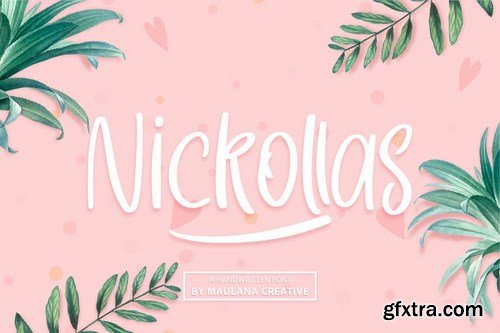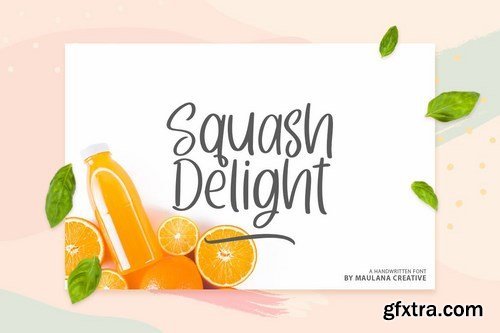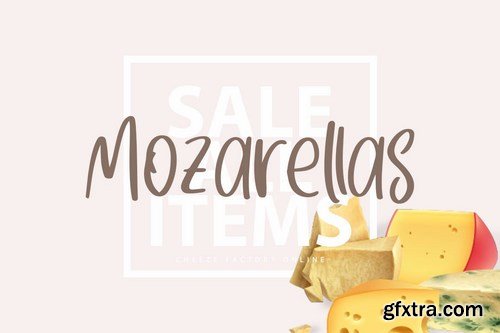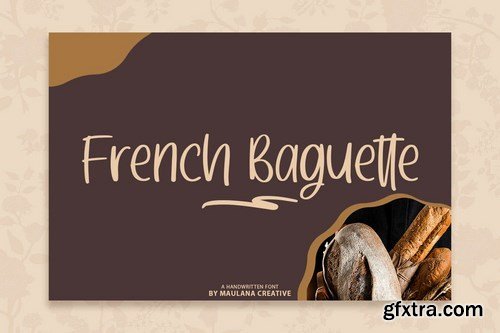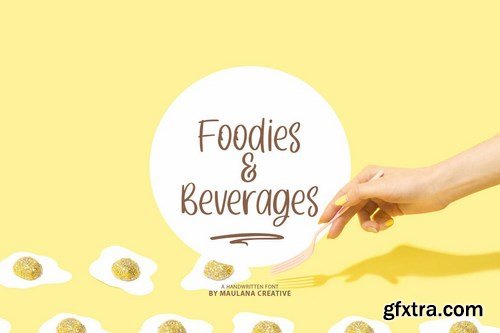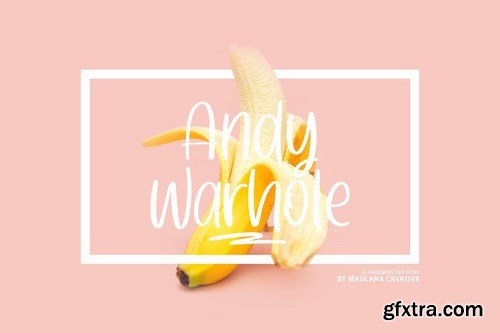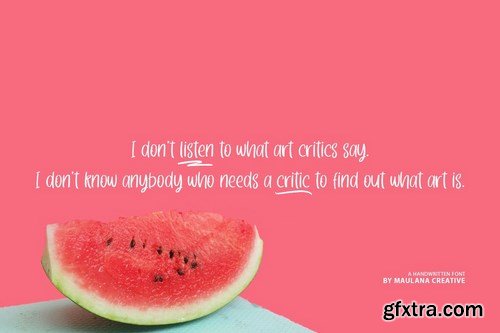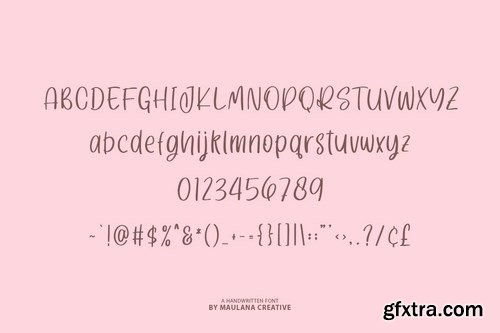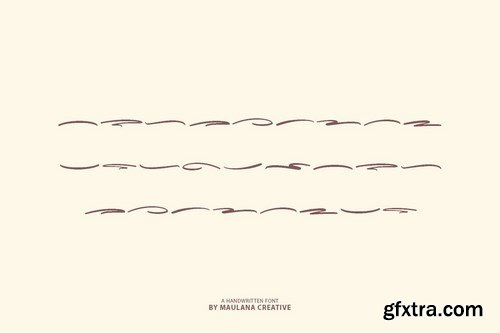
Nickollas - Handwritten Sans Serif Font
Nickollas is a handwritten sans serif font. This font is very simple and fun to use! Nickollas is perfect for create a quotes, logo, badge, insignia, packaging, headline, poster, t-shirt/apparel, greeting card, wedding invitation and more. This Nickollas font include Swash version font, the swash is very so cute for your awesome logo design.
Ligatures ll, ss & tt